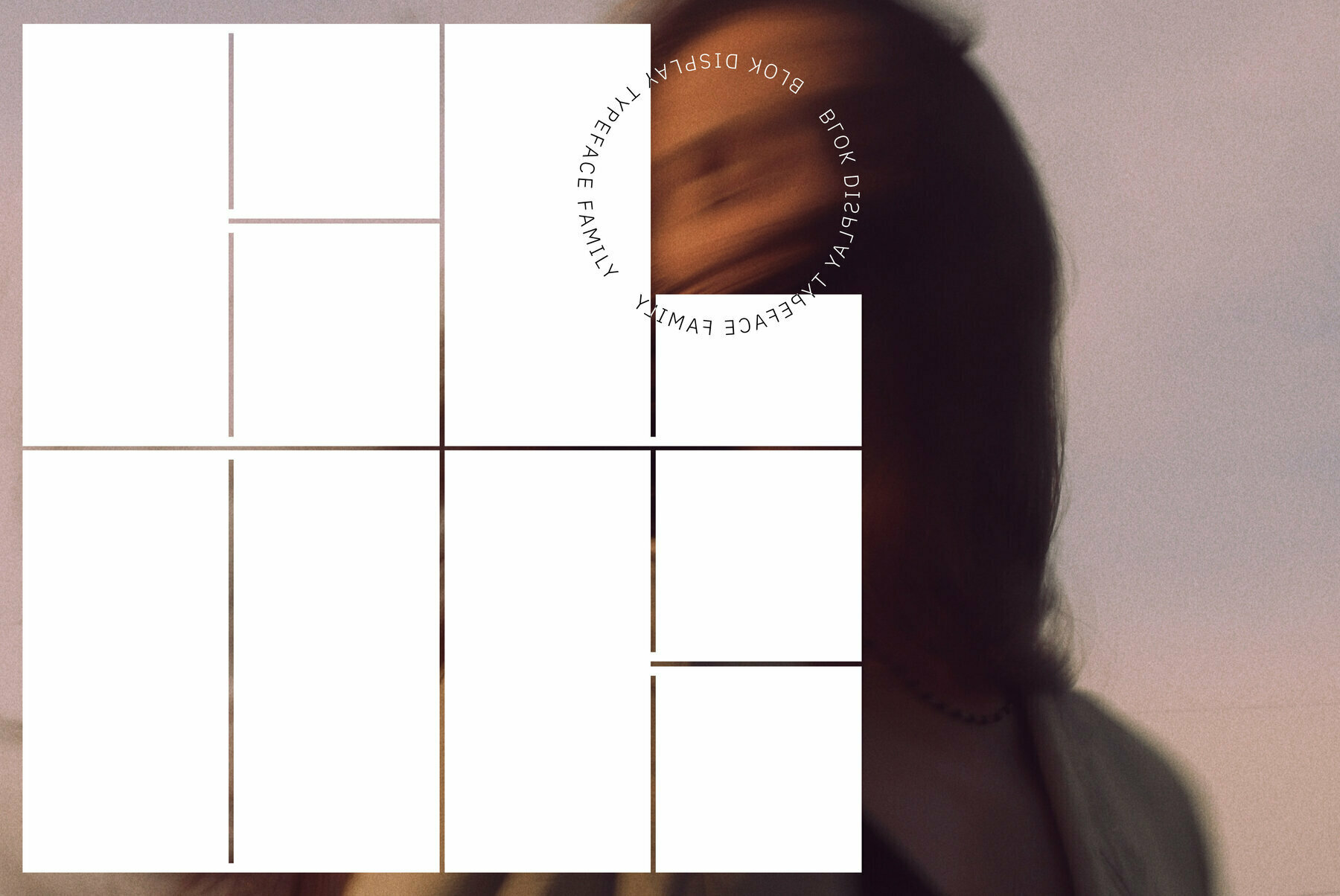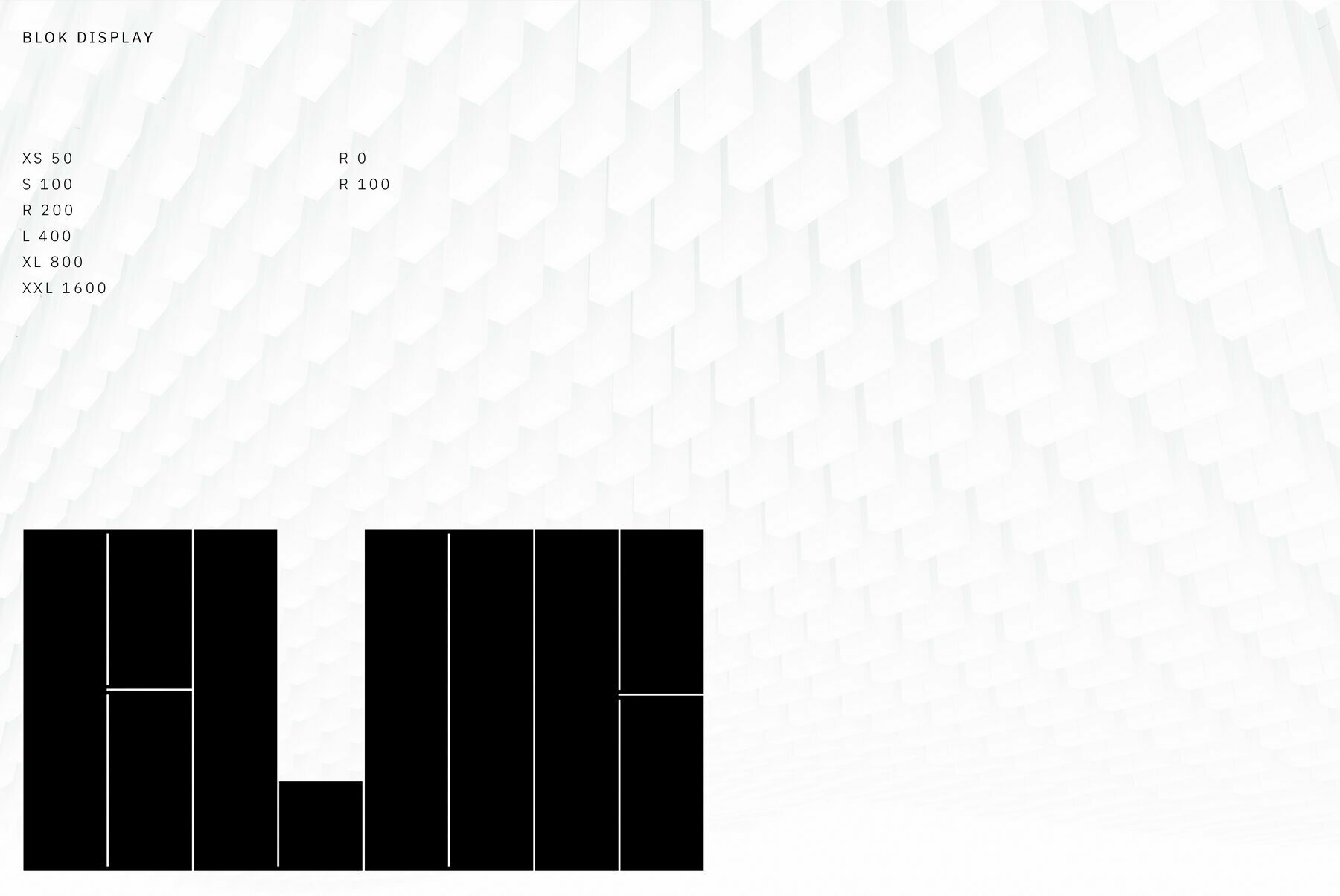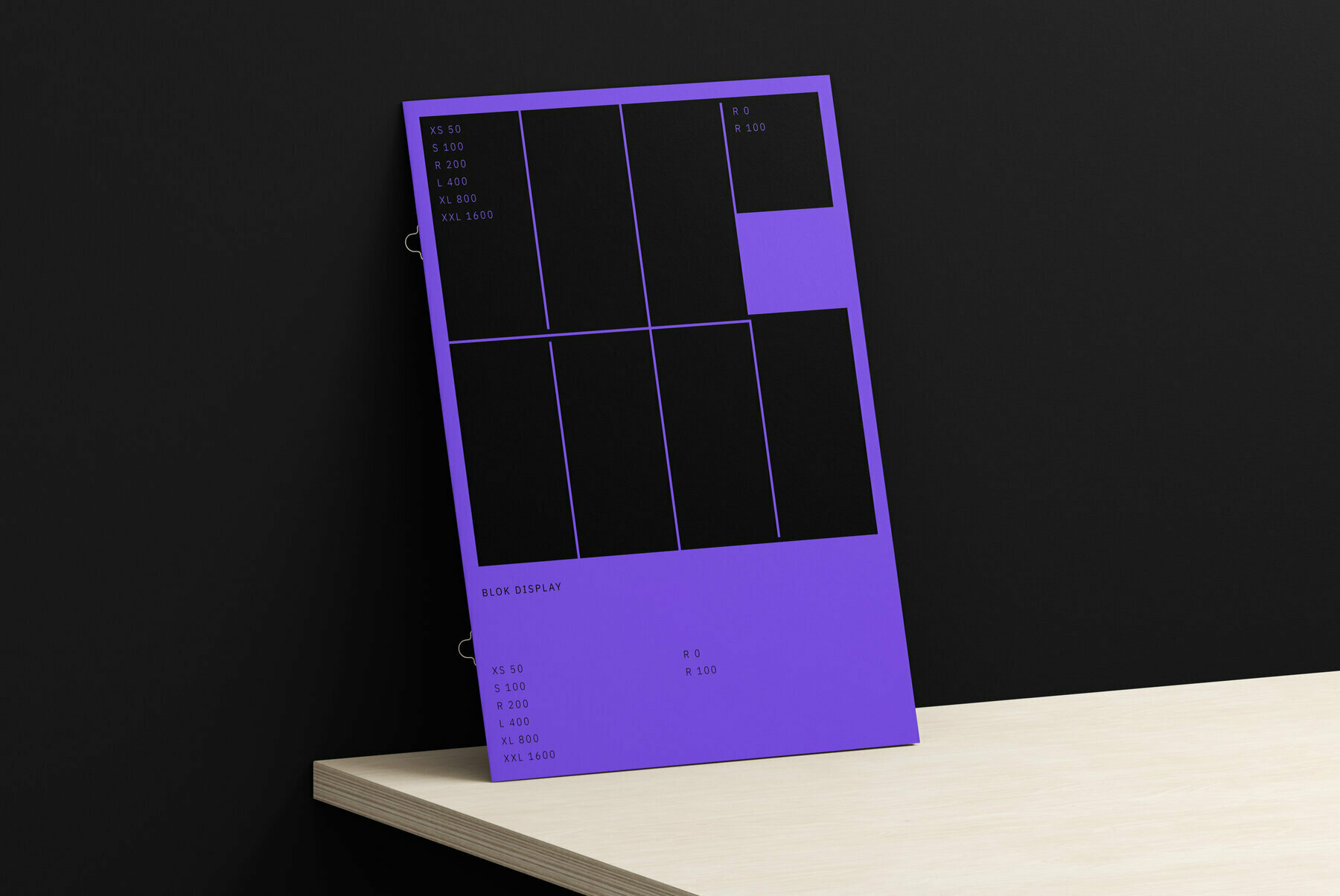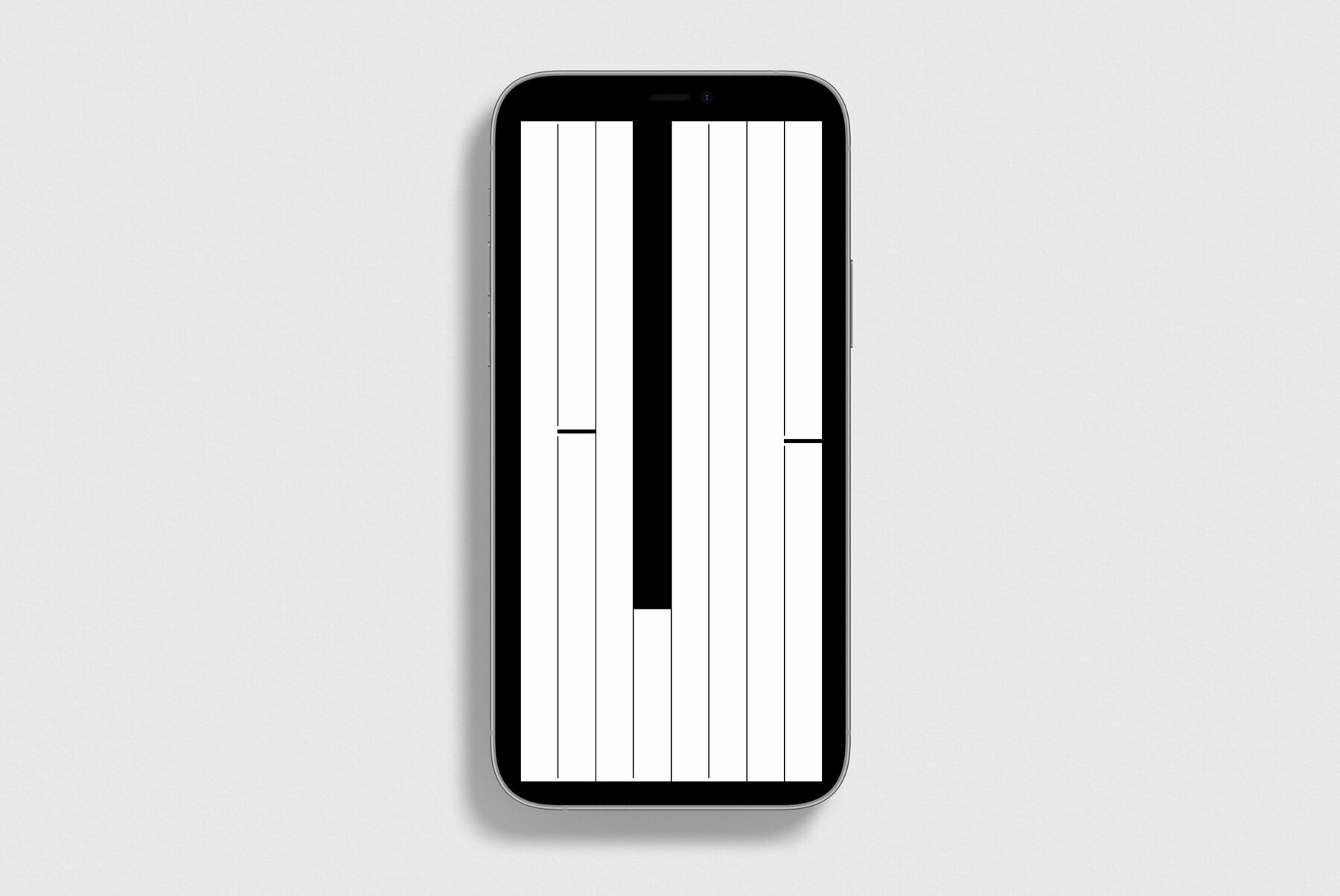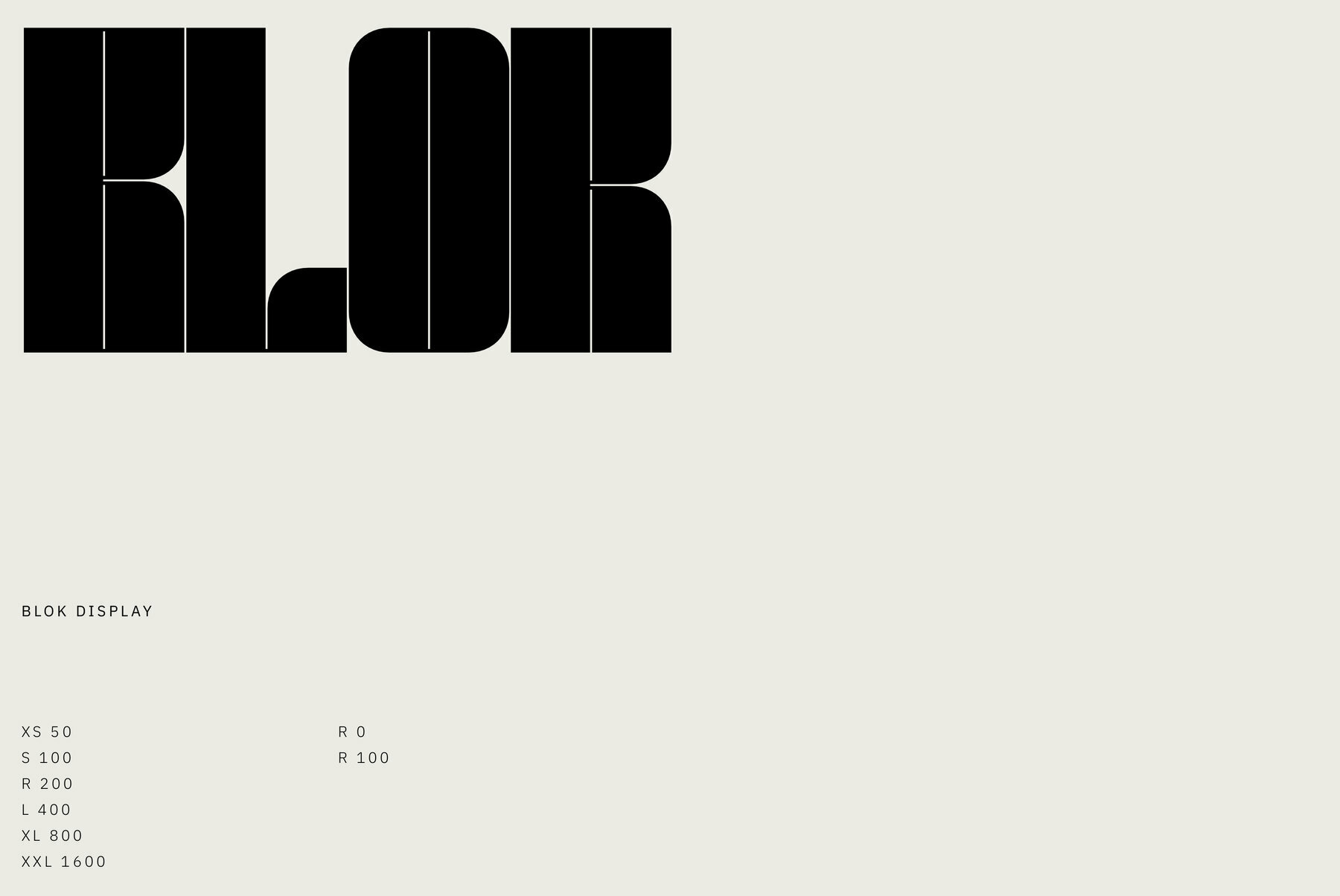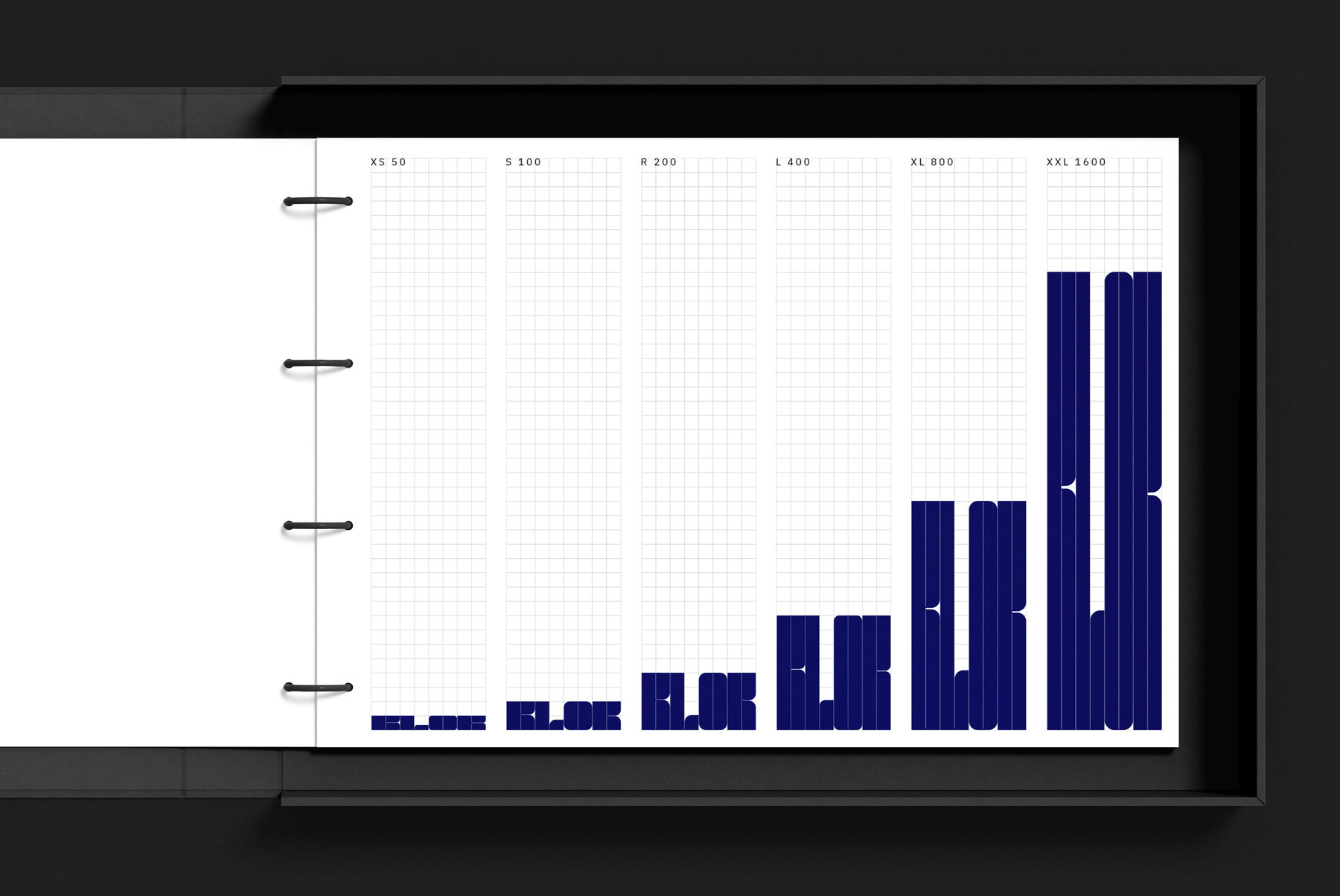
Blok Font
Built on a square grid, Blok's variable axis conforms to your canvas. With pre-defined weights ranging from 2x1, through to 1x16, Blok is as flexible as it is structured. Character Set: A-Z, Period & Exclamation Mark Weights: 6 Normal & 6 Rounded
Studio Few, founded by Samuel Oakes, is a renowned type foundry celebrated for its minimalist and purposeful font designs. Focused on refining typography to its purest form, Studio Few believes that every design decision should carry meaning without excess or complexity. For nearly a decade, Studio Few has bee...